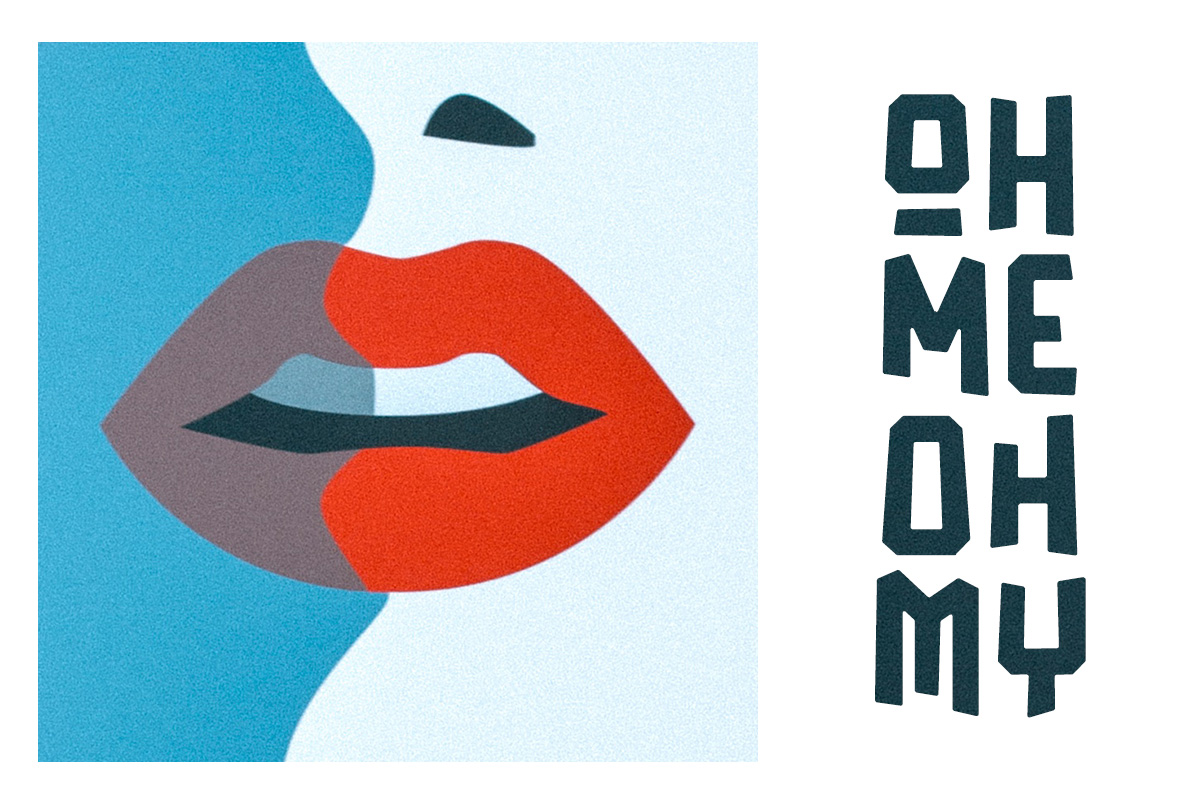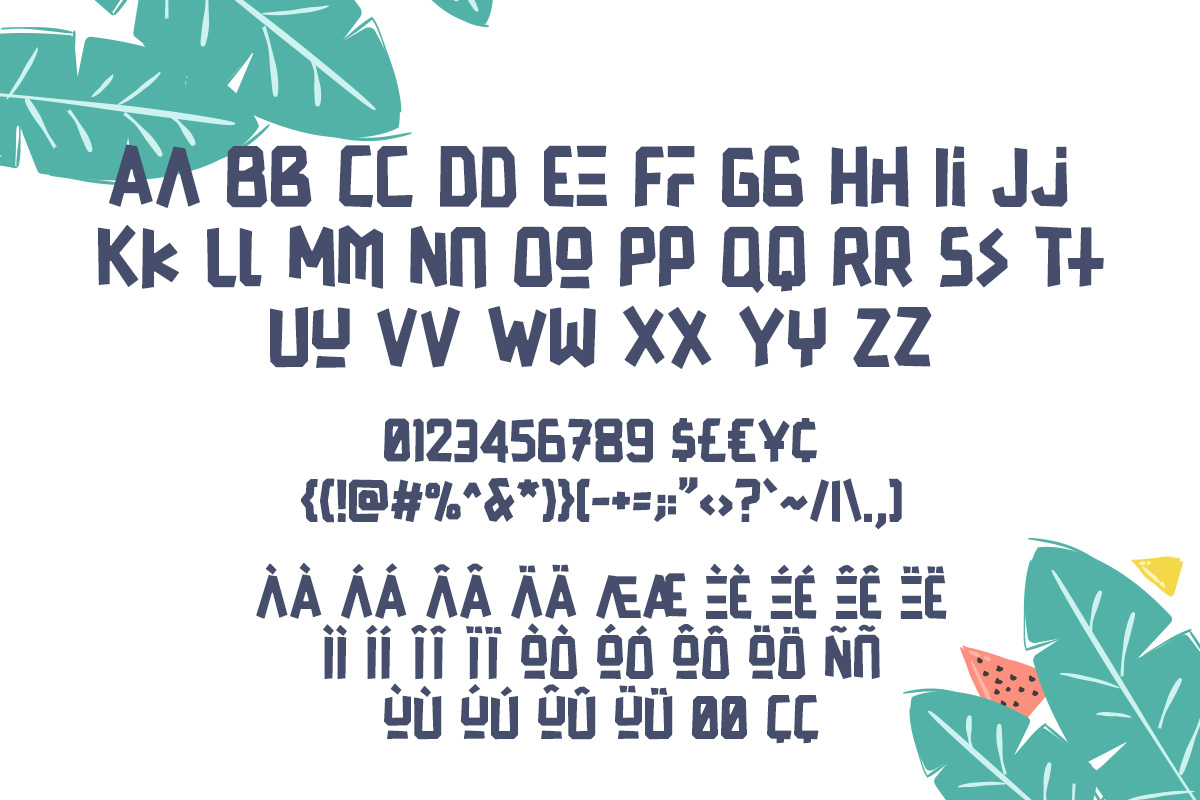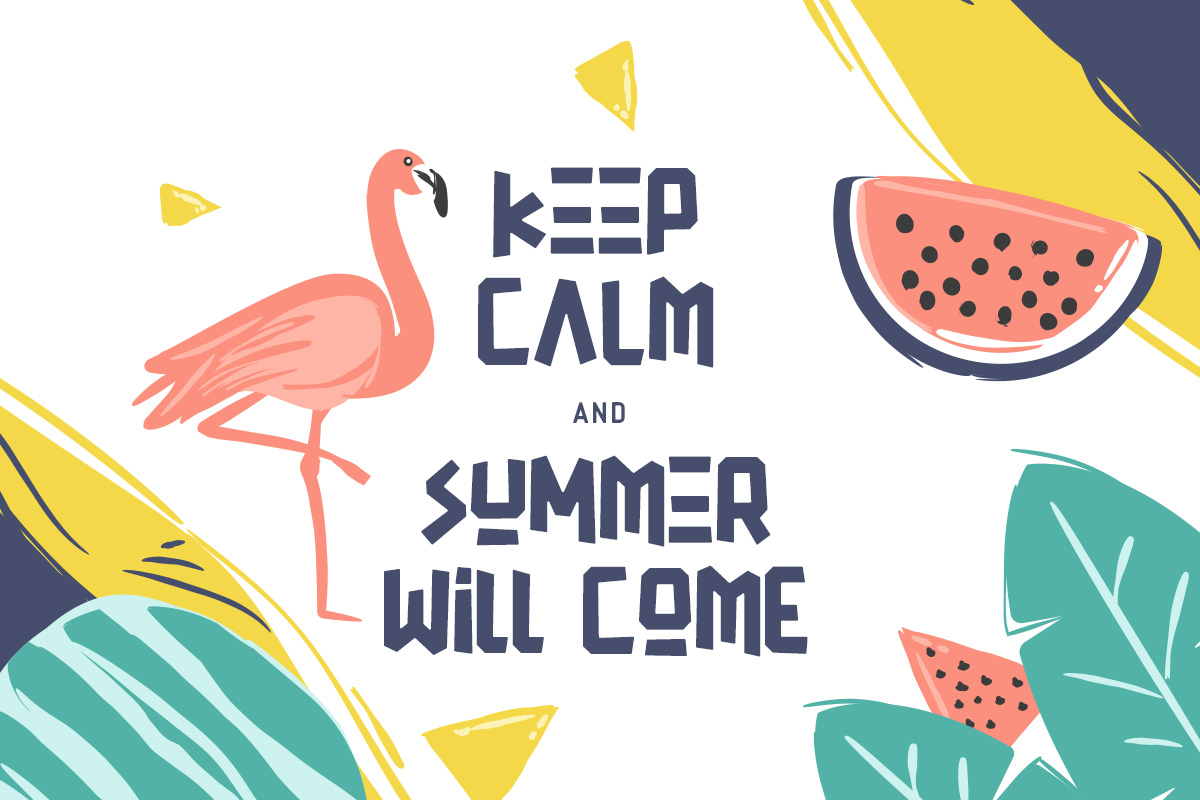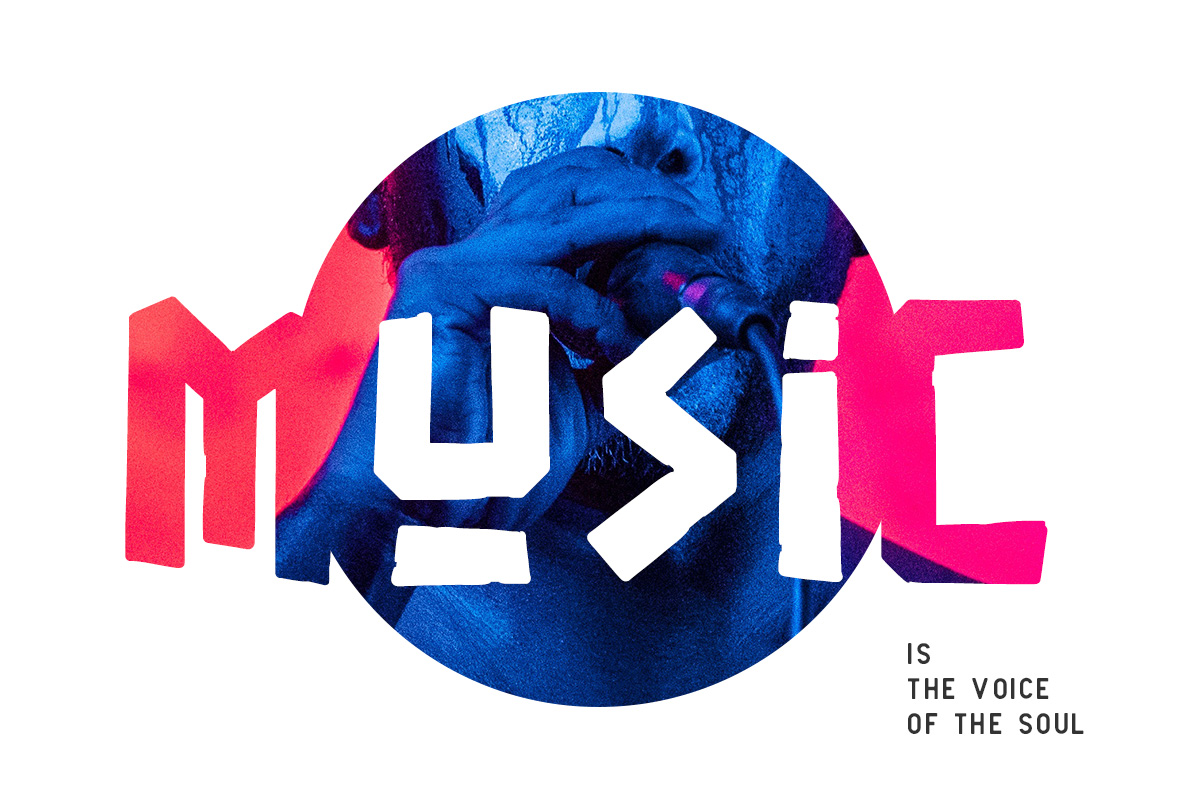
The Perfect Blend of Edginess and Sophistication: Introducing Franky Font
Have you ever found yourself stuck in a creative rut, unable to convey the perfect message in the perfect font? I know I have. That’s why I’m always on the lookout for a font that’s bold, unique, and versatile. And that’s exactly what I found with the Franky Font.
This cool blocky font is perfect for making statements or adding some visual interest to your designs. With its variable, uneven weighting, Franky Font adds a touch of edginess to any project. Whether you’re a seasoned designer or just starting out, Franky Font is a valuable addition to your toolkit. Its bold presence makes it easy to use in a multitude of ways, from headlines to logos and everything in between.
Key Features of Franky Font
- Character Set: The font includes a wide range of characters, including Latin, Cyrillic, and Greek alphabets, as well as punctuation and symbols.
- Unique Characteristics: Franky Font features a distinctive, modern design with clean lines and geometric shapes, making it ideal for use in digital and print media, particularly in the fields of technology, fashion, and lifestyle.
Designer Review: Franky Font
At first glance, Franky Font appears to be a fun and quirky addition to any digital design project. ✨ The font’s bold and playful nature makes it perfect for headings, titles, or any text that needs a bit of personality. The characters are well-designed, with clear lines and defined shapes that make them easy to read.
One of the standout features of Franky Font is its versatility. It comes in a range of weights and styles, from light to bold, which allows designers to mix and match to suit their project’s needs. ✨ The font also works well in both digital and print applications, making it a great choice for designers who need a single font to cover multiple mediums.
- ⚠️ Limited support for languages other than English, which may be a concern for designers working on international projects.
- ⚠️ The font’s bold weight can sometimes be overpowering, making it difficult to read in certain contexts.
- ⚠️ The font’s quirky nature may not be suitable for all design projects, particularly those that require a more formal or professional tone.
Overall, Franky Font is a solid addition to any designer’s toolkit. While it may have some limitations, its versatility and playfulness make it a great choice for designers looking to add some personality to their projects. With a bit of caution and creativity, Franky Font can be a valuable asset in any design workflow.
Franky Font is ideal for:
- Modern and trendy designs.
- Corporate branding and identity.
- Social media graphics and ads.
- Web design and development.